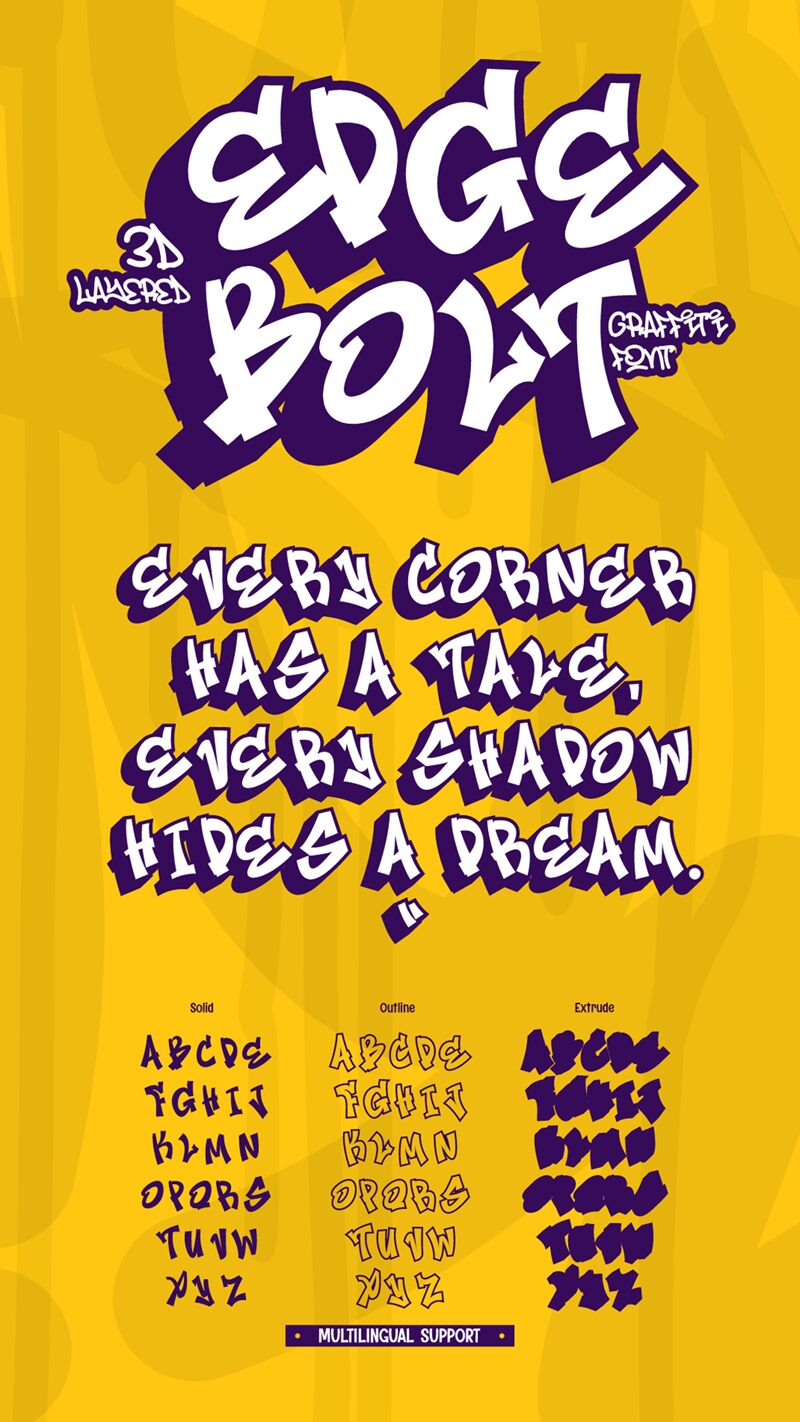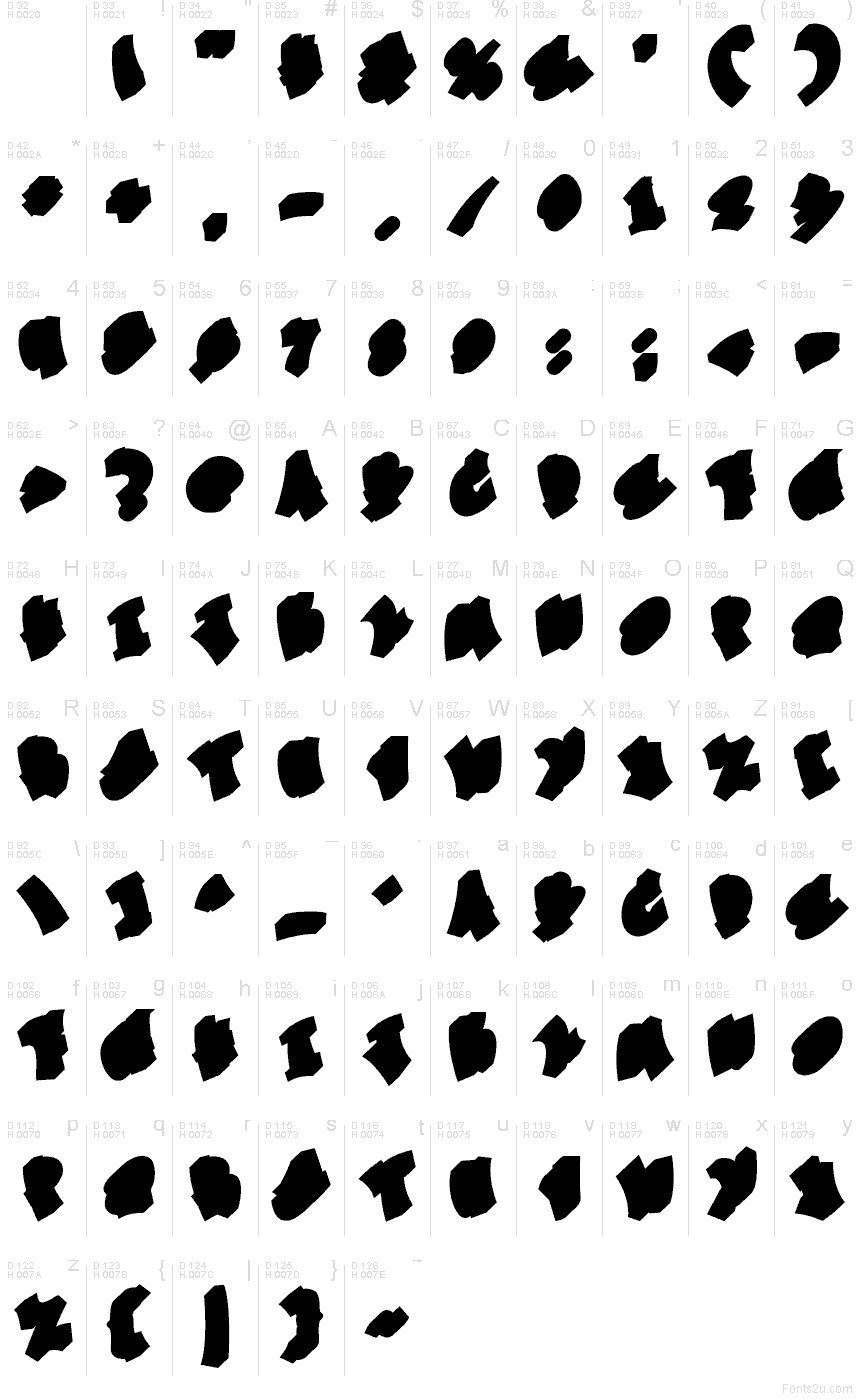
Edge Bolt Extrude font by Muhammad Panji Ramdhani of Figuree Studio is a free graffiti font that turns any layout into a burst of street energy. Its chunky sprayed strokes, tight rhythm, and built‑in extrude effect create a bold, layered look that feels like wet paint catching the light. Part of the Edge Bolt family, this typeface has a heavy, inky presence that still reads smoothly from a distance, giving you loud attitude without losing legibility.
Using Edge Bolt Extrude, you can push headlines on event posters, hip‑hop or EDM album covers, streetwear logos, skate or BMX flyers, YouTube thumbnails, and sticker sheets. The deep faux‑3D feel makes short words slam off the page, especially at large sizes. For supporting text, pair this free font with a clean geometric sans in all caps to keep the focus on the graffiti forms while maintaining a sharp, modern balance.